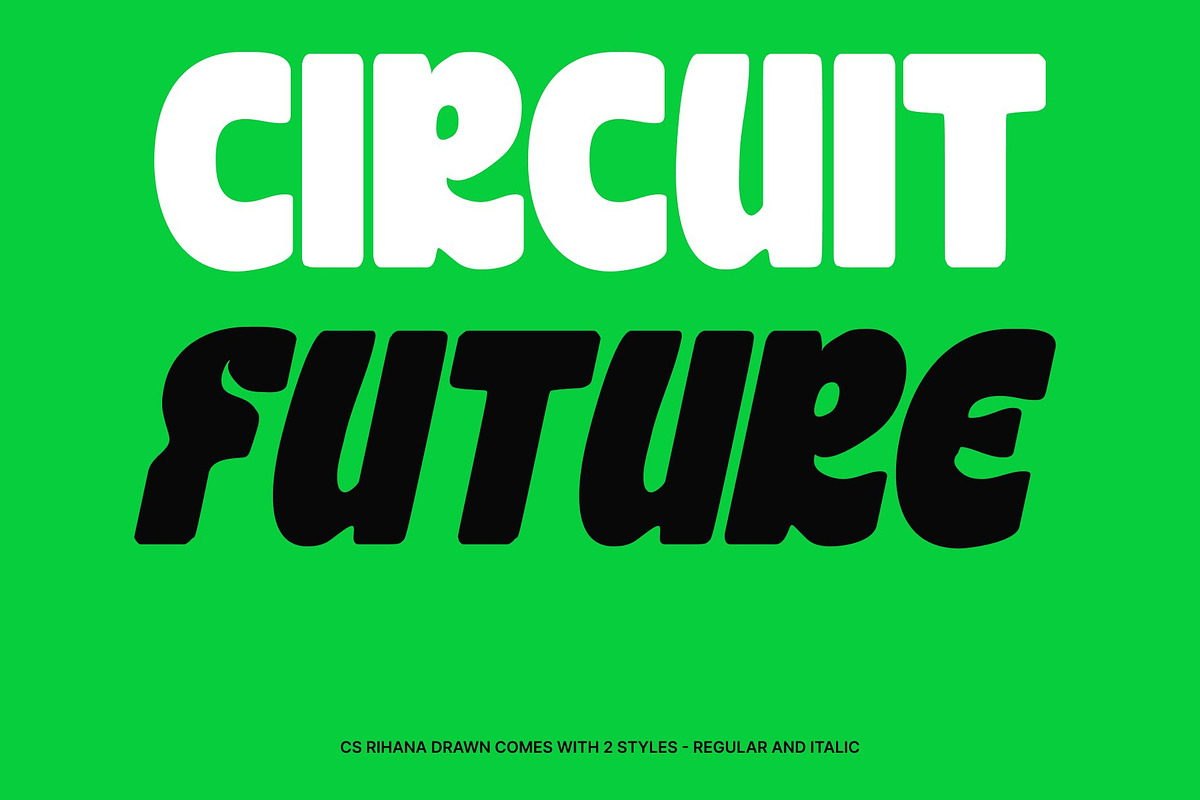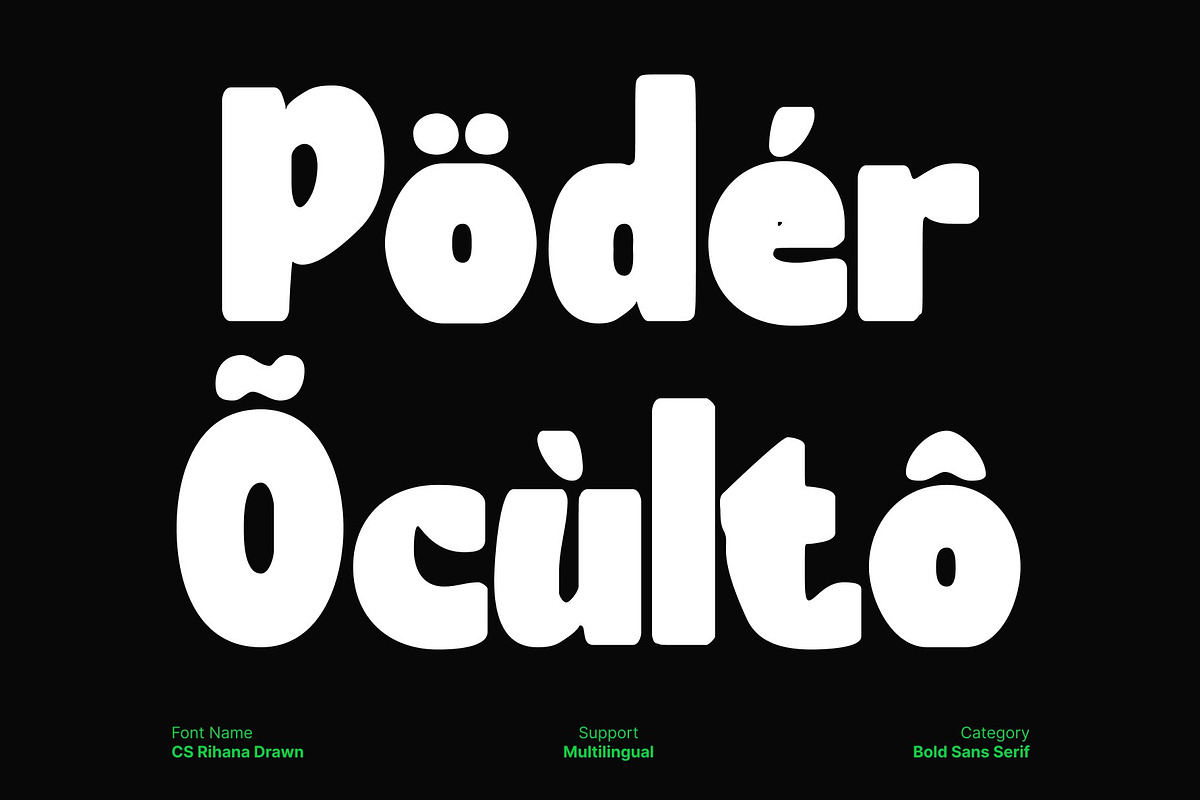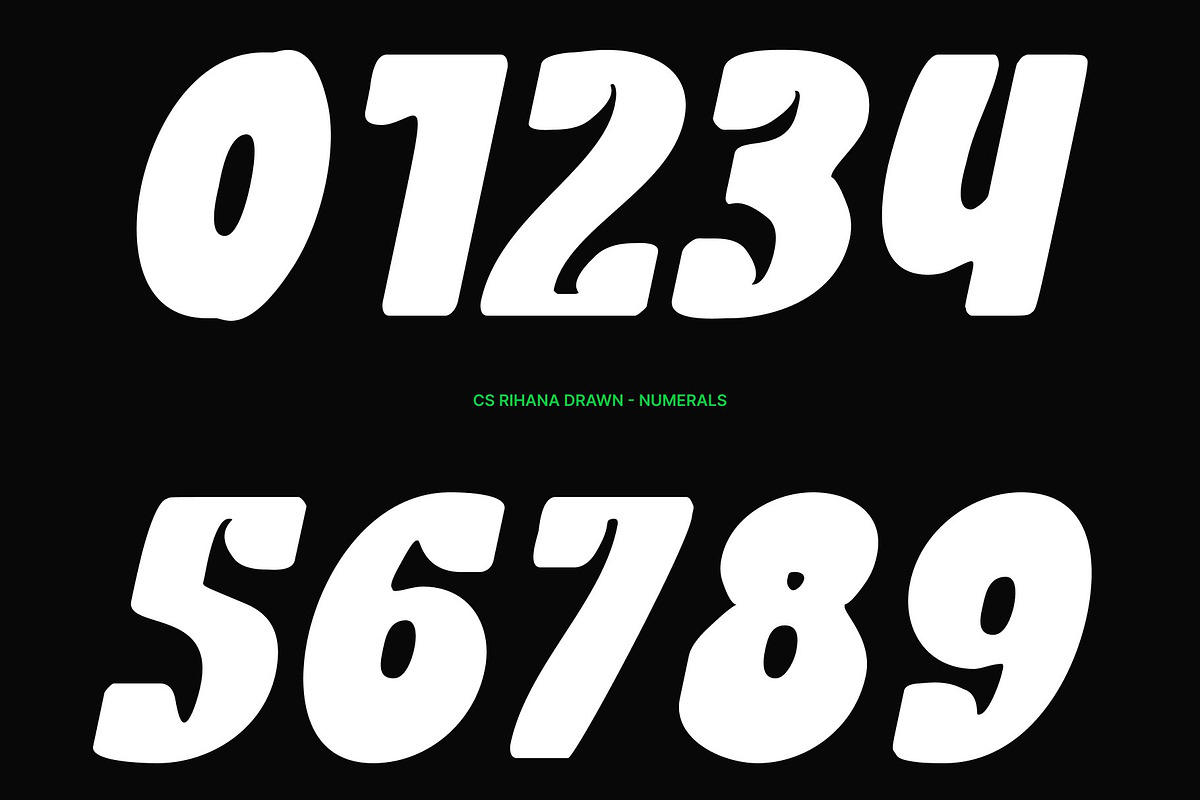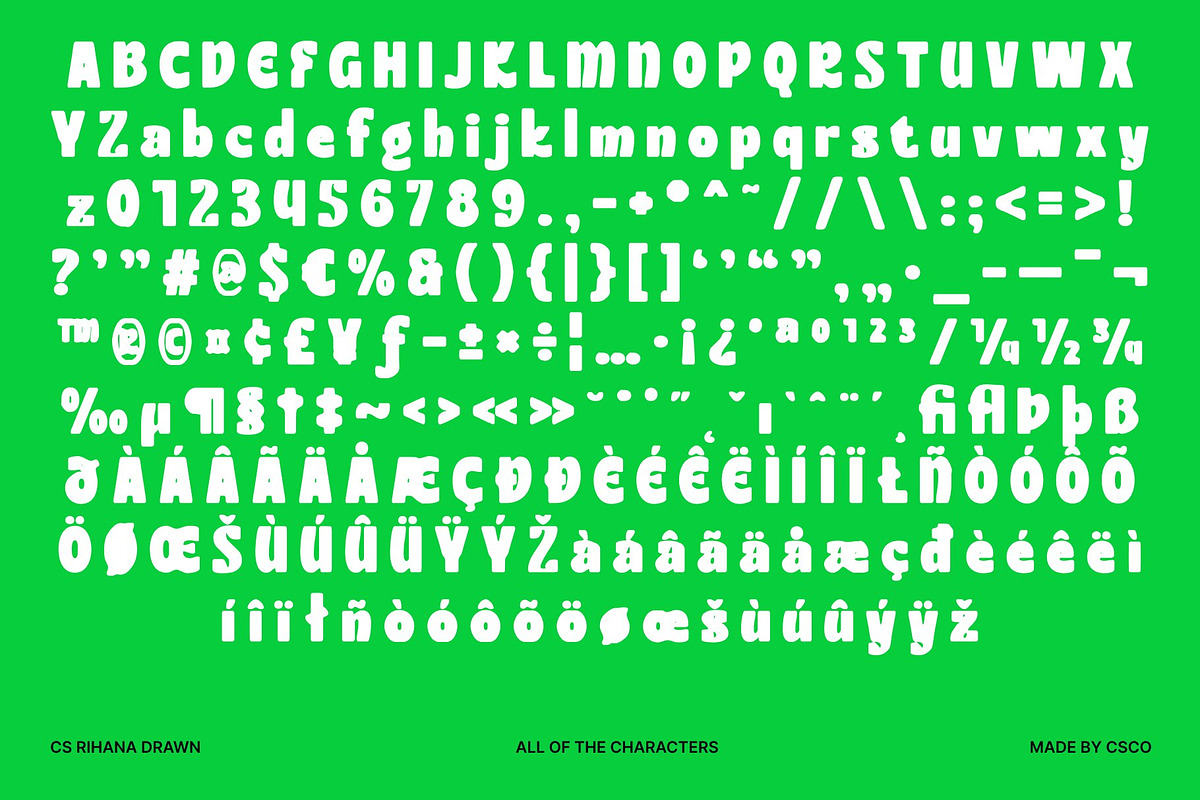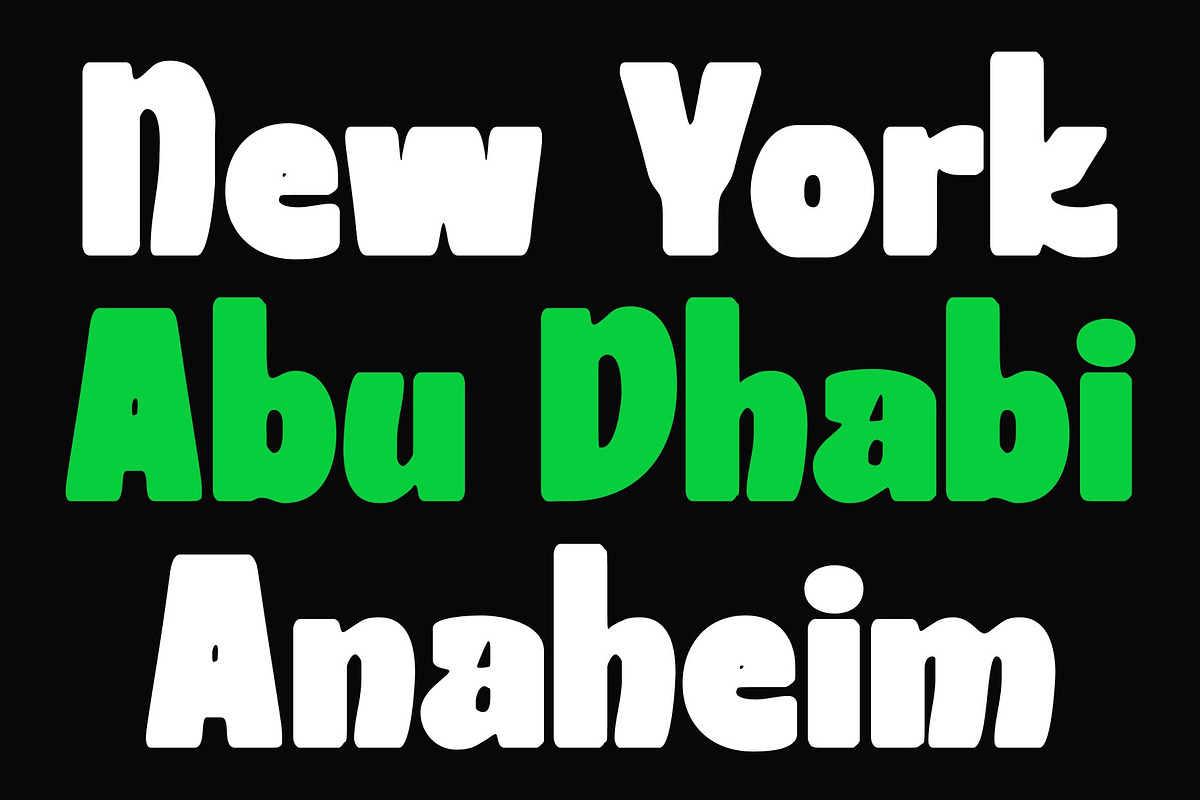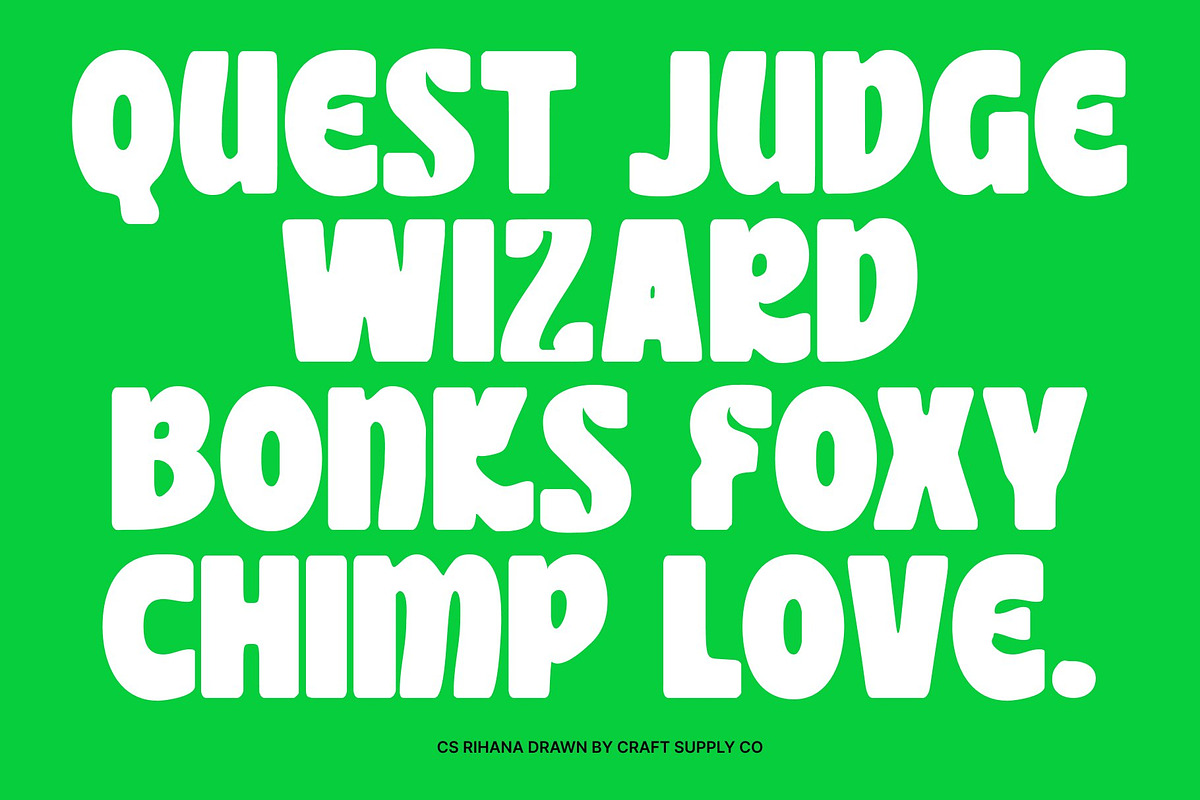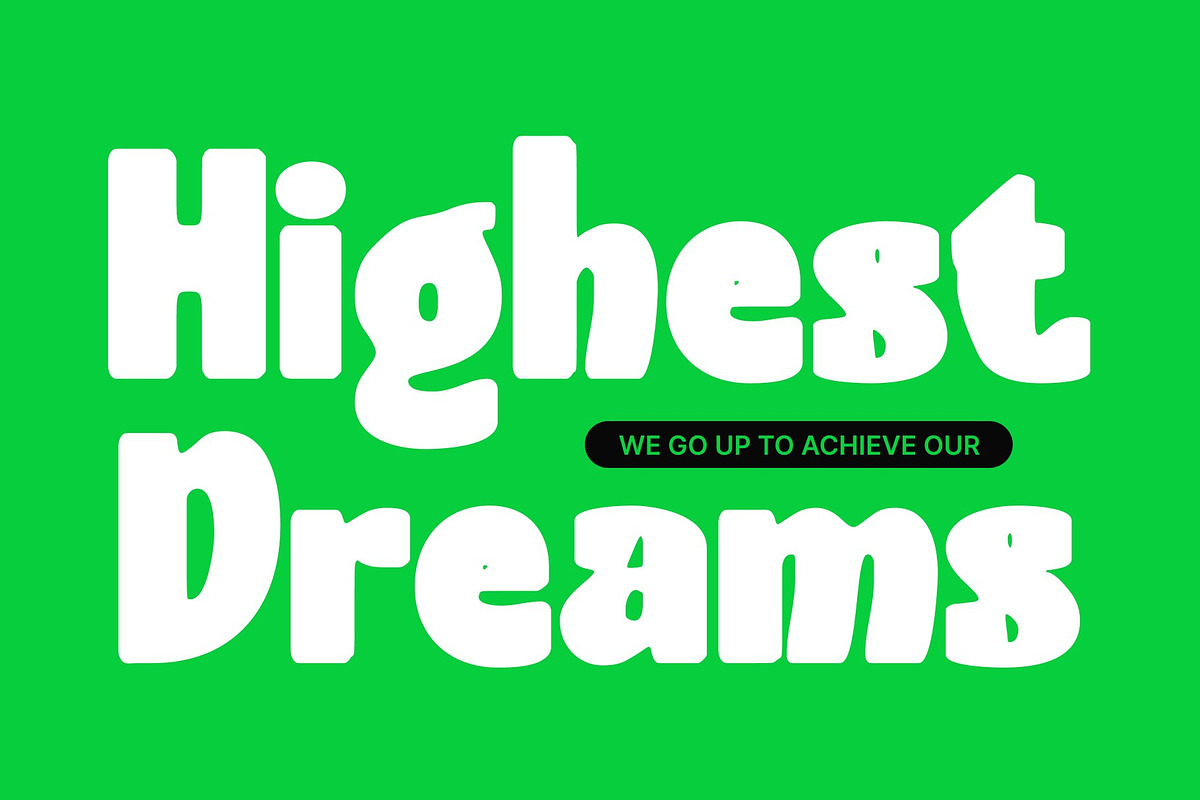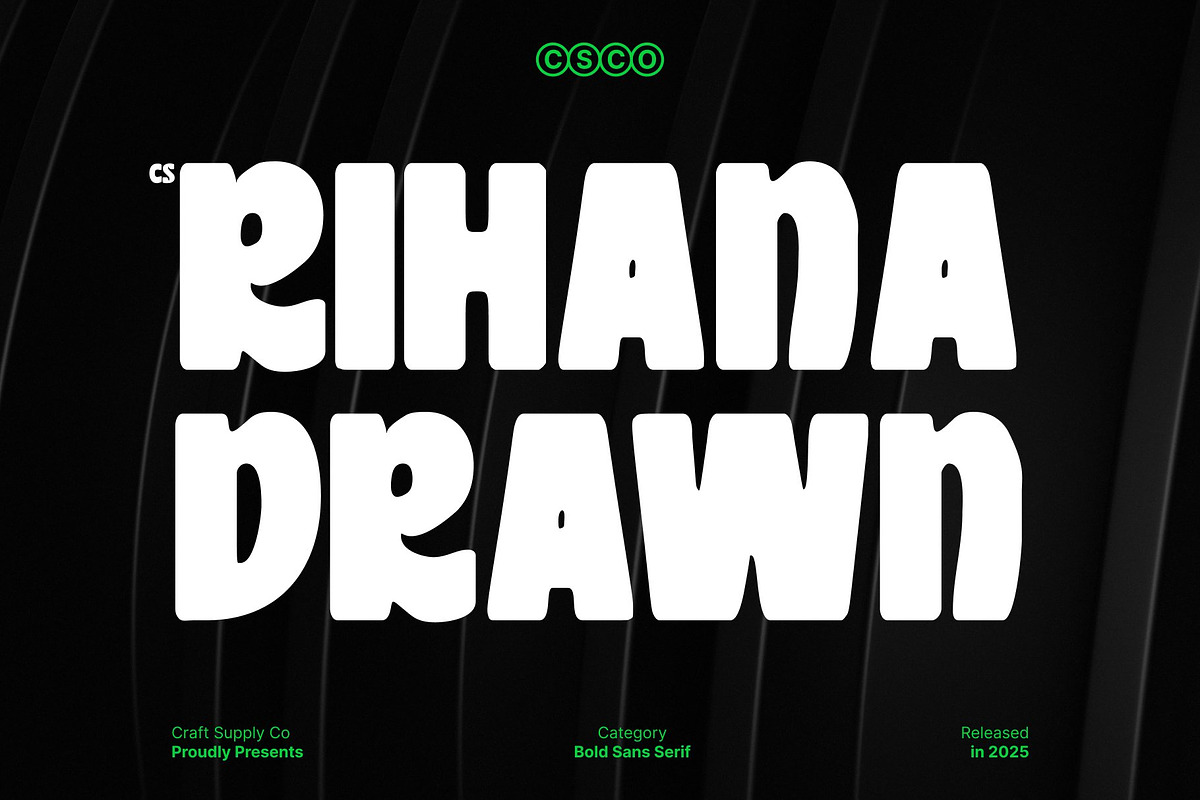
CS Rihana Drawn
CS Rihana Drawn – Bold Modern Display Font with Strong Character
Bold, Modern, and Impactful This is a bold modern display font designed to command attention. Its thick, confident letterforms and contemporary styling give any text a powerful presence, making it perfect for projects that require clarity, impact, and strong visual hierarchy.
Stylish Sans-Serif with Expressive Detailing As a modified sans-serif, this font balances structural precision with subtle hand-drawn details. The drawn texture adds personality and character to the clean lines and flowing curves, creating a typeface that is both modern and visually engaging.
Ideal for Headlines and Titles With its bold, assertive design, this font excels in headlines, titles, posters, magazine covers, and branding materials. Its strong presence ensures maximum readability and visibility while adding a stylish, contemporary edge to any layout.
Versatile for Branding and Creative Projects This font is highly adaptable across print and digital media. From logos and editorial layouts to advertising and digital branding, its bold, distinctive character conveys professionalism, creativity, and style making it a perfect choice for designers who want their work to stand out.